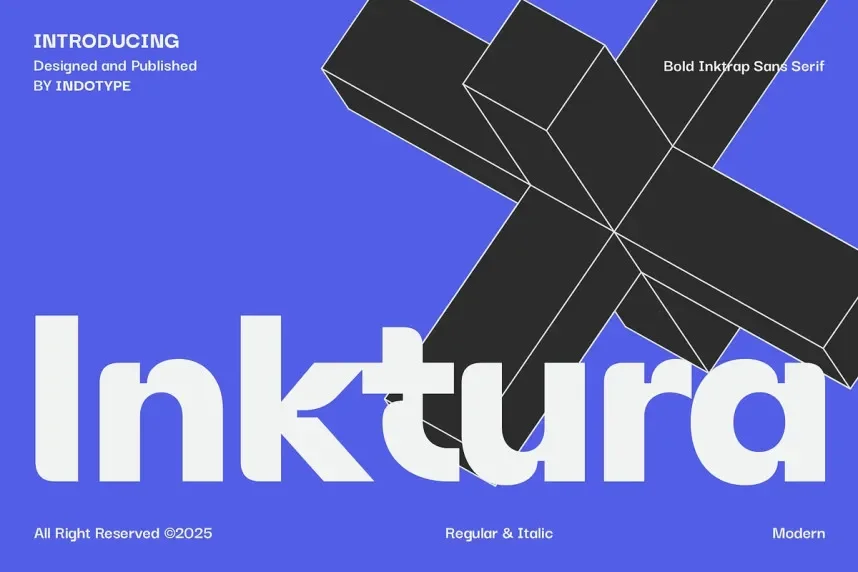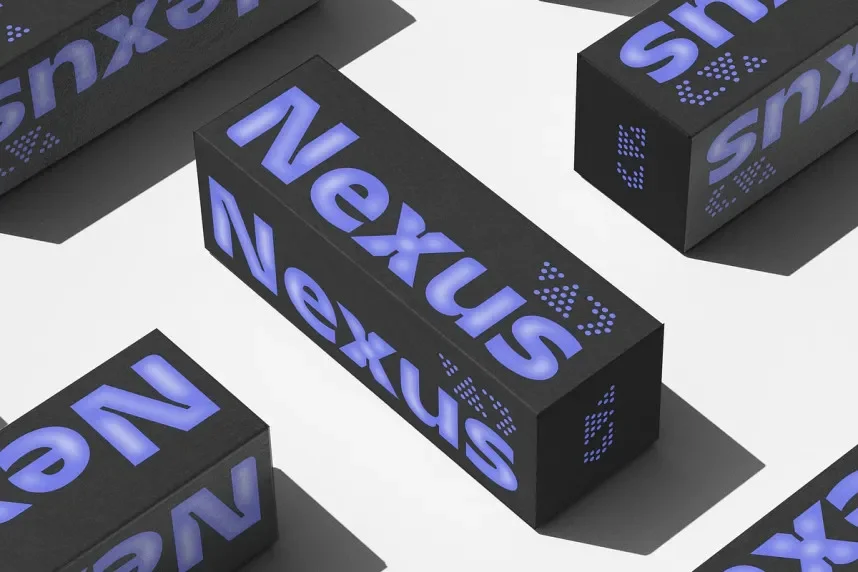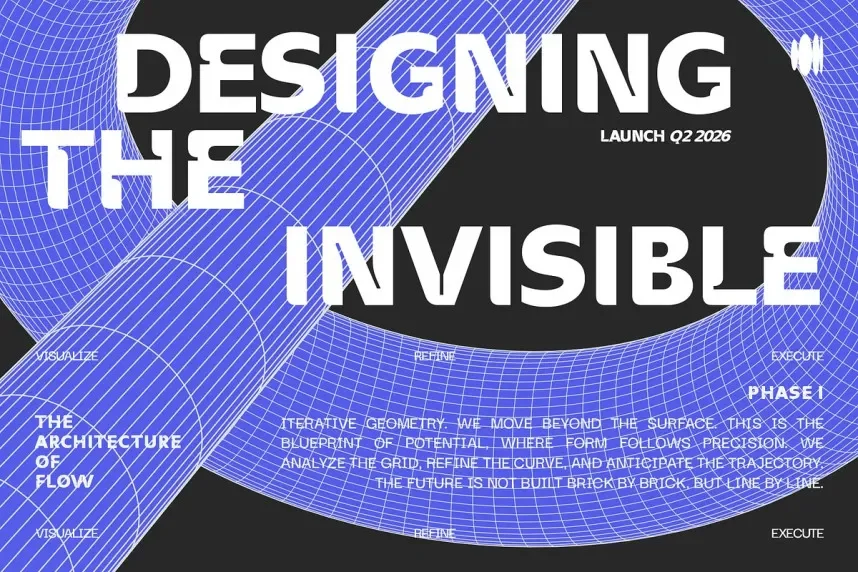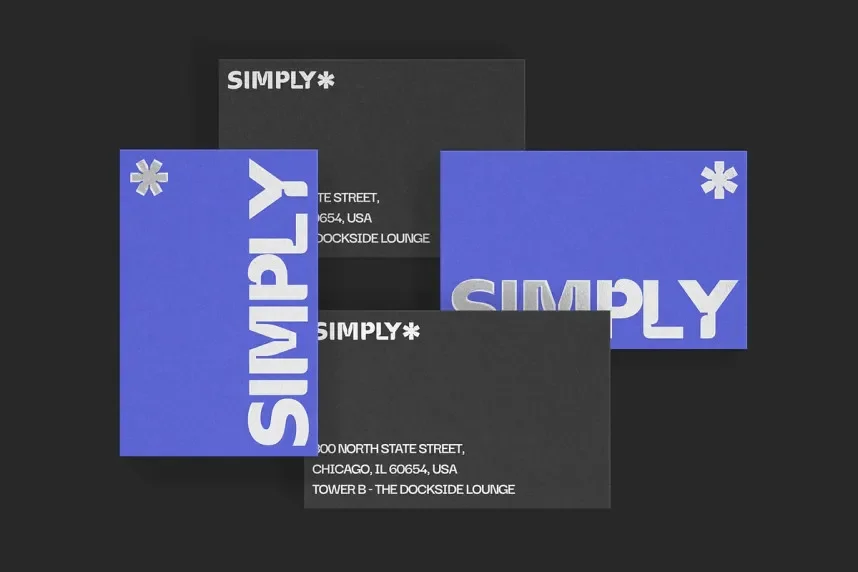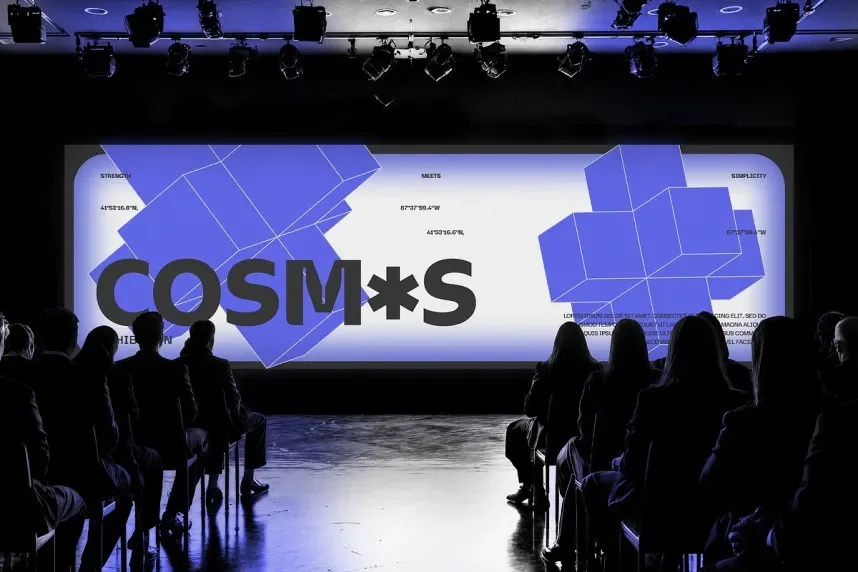
IT Inktura Font is a modern sans-serif typeface designed for sleek, professional designs. Its clean lines and simple structure make it highly legible, perfect for digital interfaces, branding, and web design projects that require a minimalist aesthetic.
Best used for website headings, social media posts, and business branding, IT Inktura Font works well with serif fonts for body text to create contrast and enhance readability. Available in TTF and OTF formats, it includes a commercial-use license. Be sure to review the license details for commercial use.